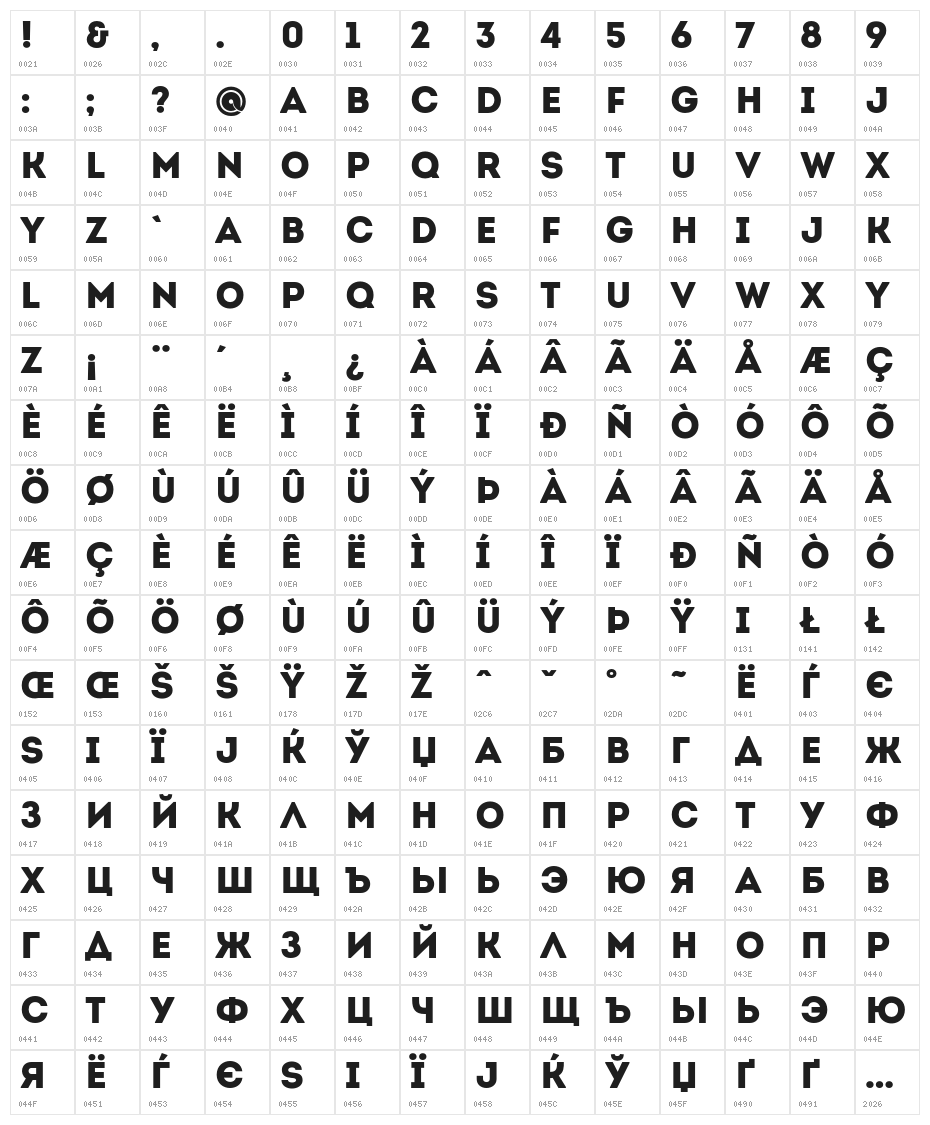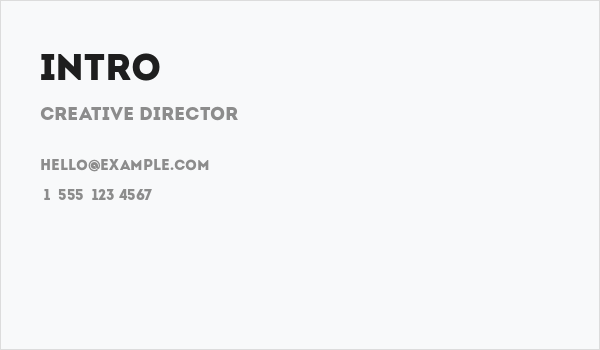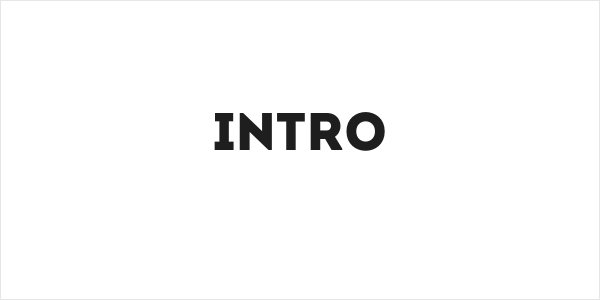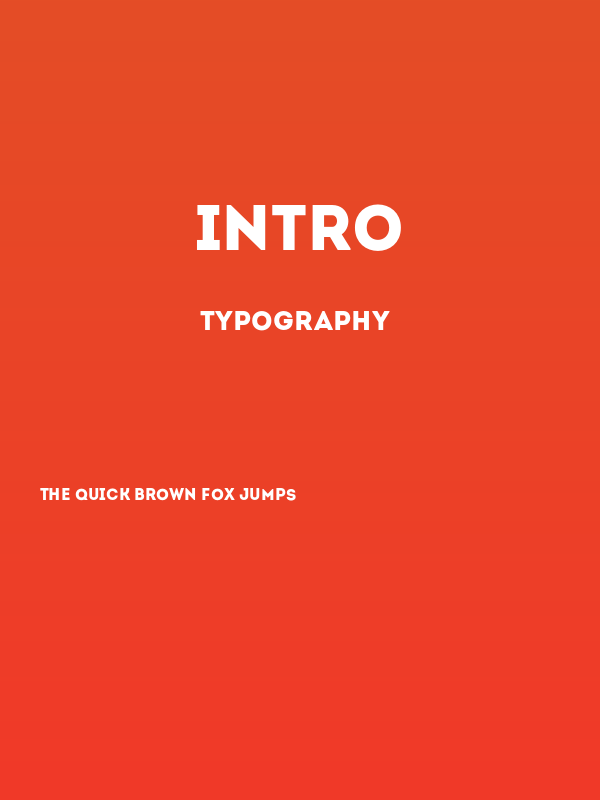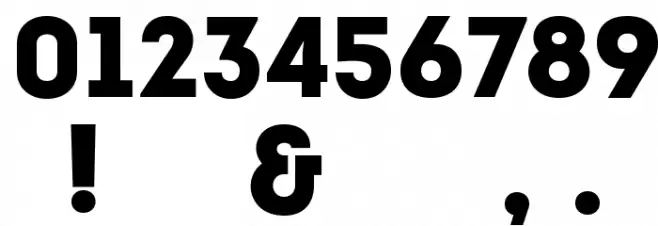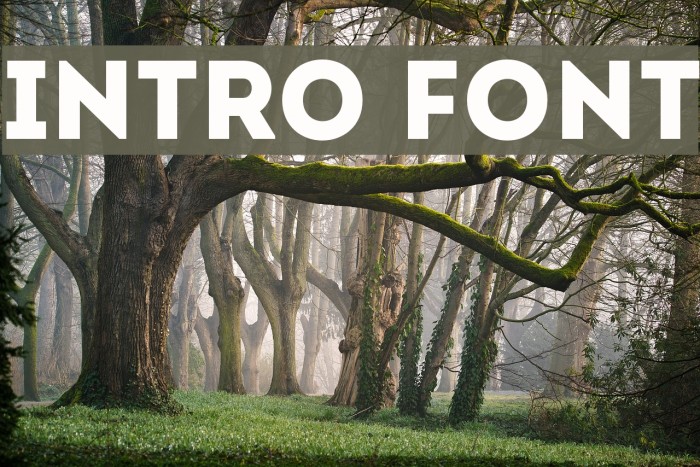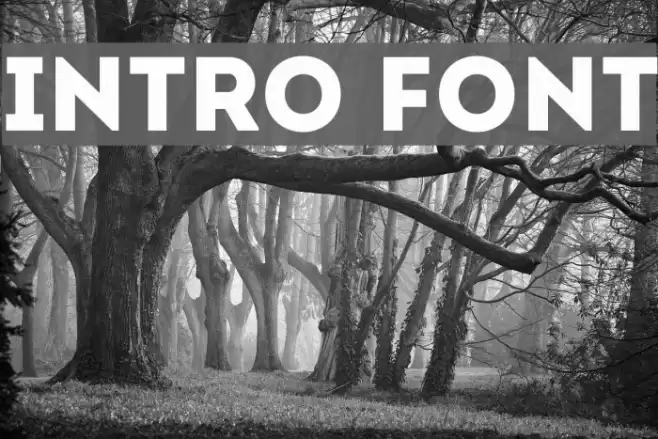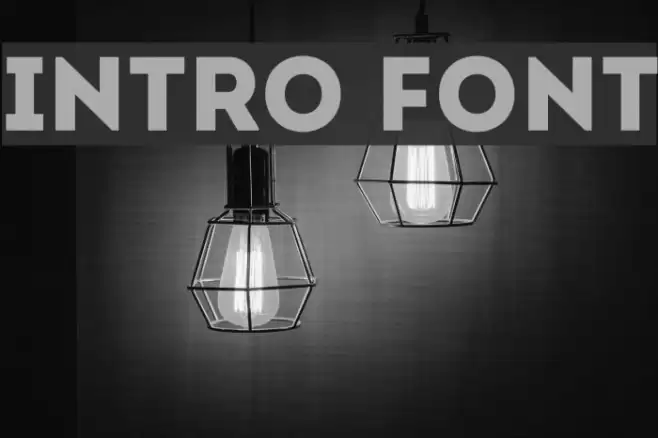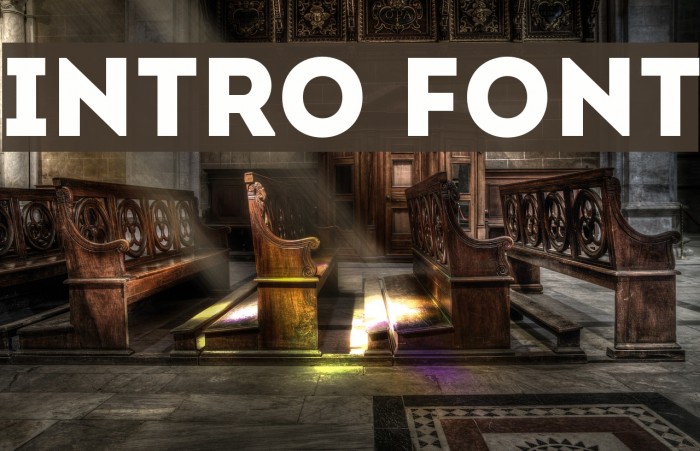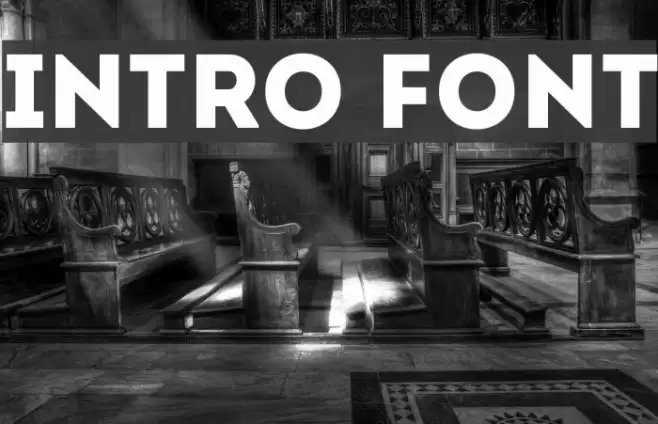
Intro Font
Intro Description
This font features a bold and impactful design with strong geometric shapes and clean lines. The uppercase letters are uniform in height, creating a cohesive and structured appearance. The numerals are equally bold, maintaining the same weight and style as the letters, ensuring consistency throughout. Special characters like the ampersand and exclamation mark are designed with the same boldness, making them stand out effectively. The overall style is modern and assertive, suitable for making a strong visual statement.
| Proposed Projects | Ideal for branding, headlines, posters, and any project requiring a strong visual impact. |